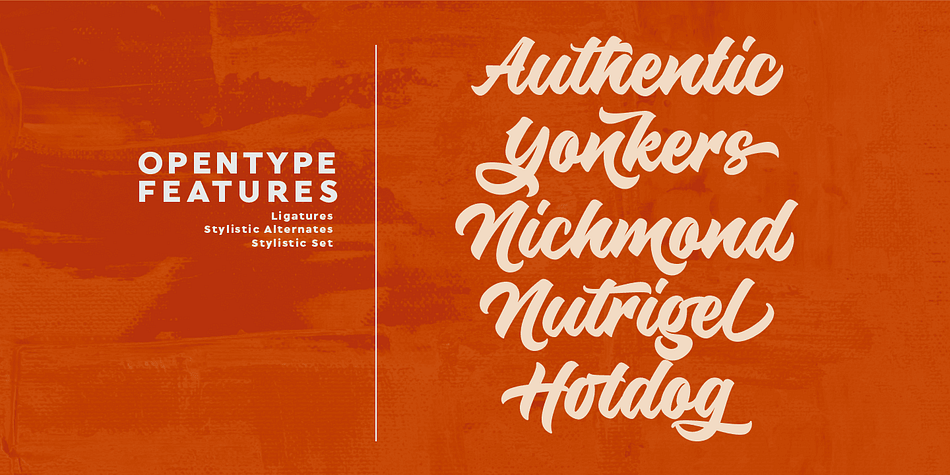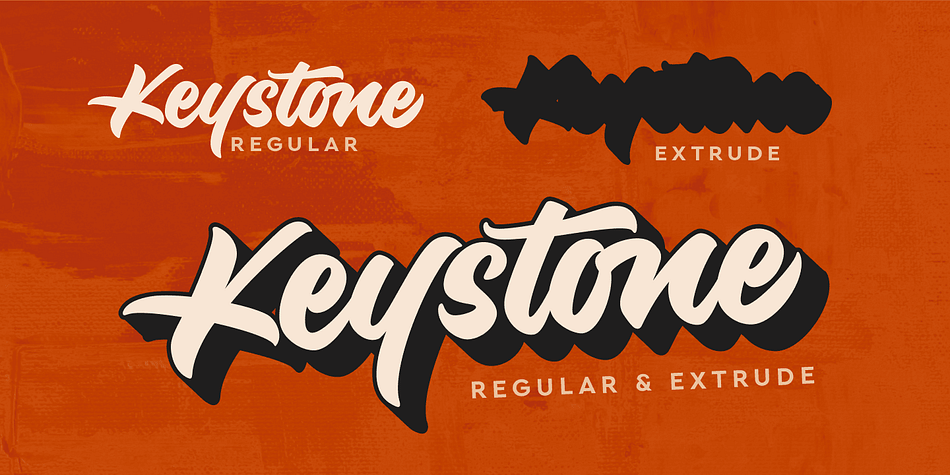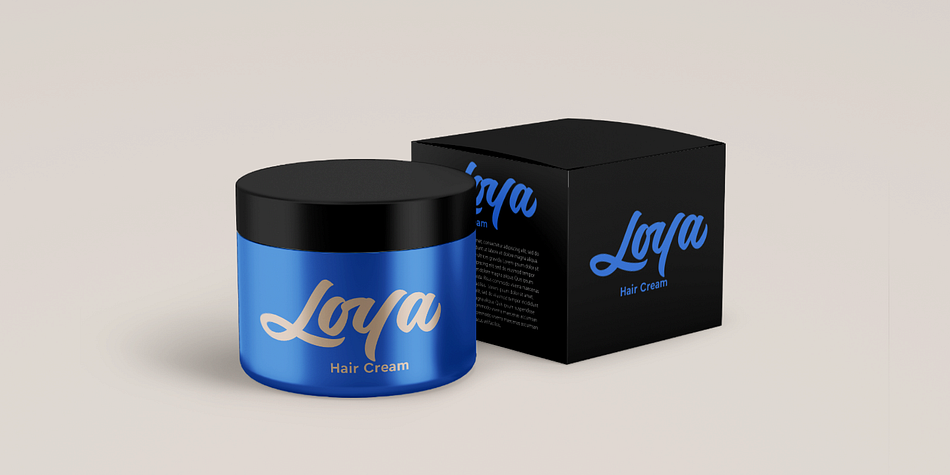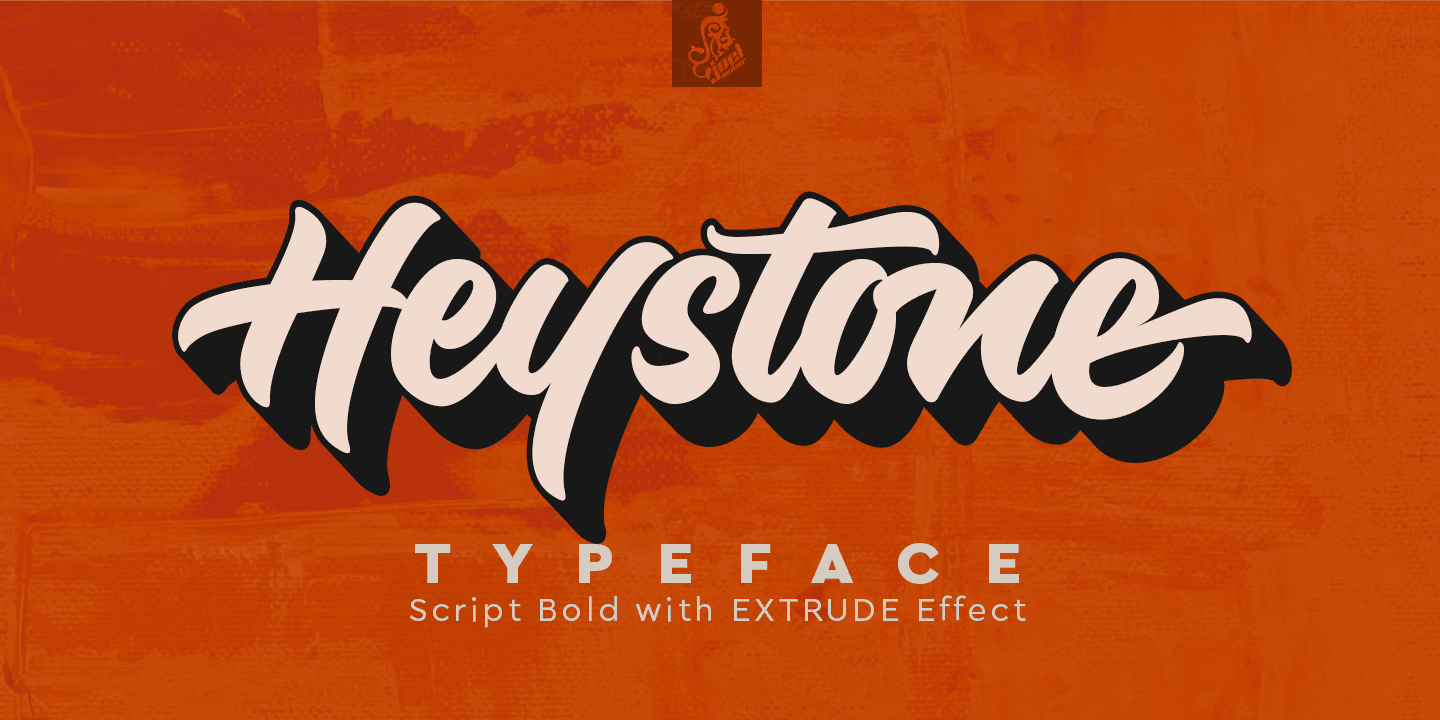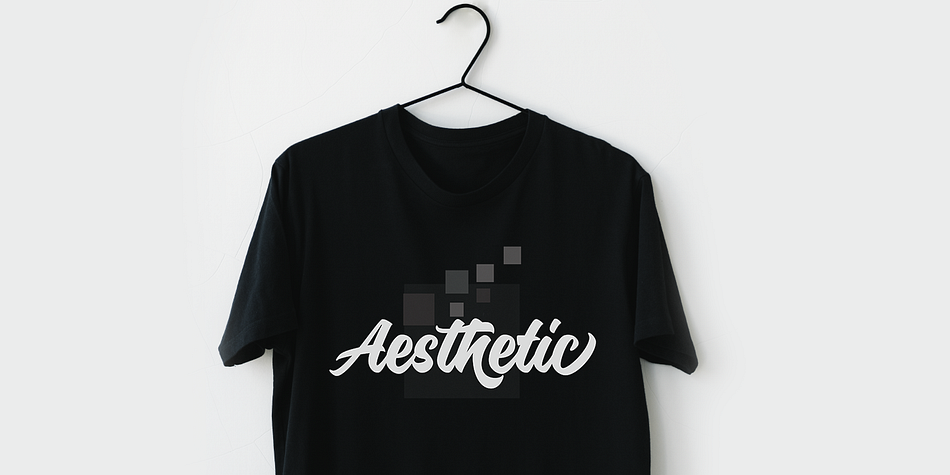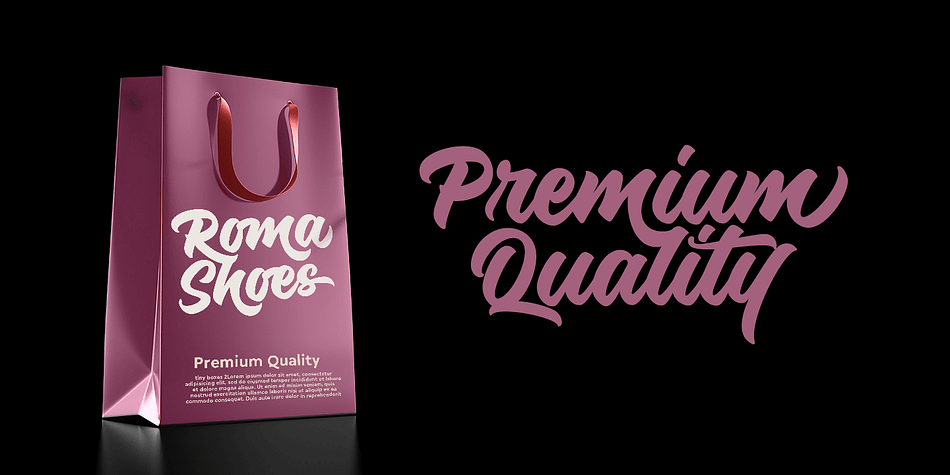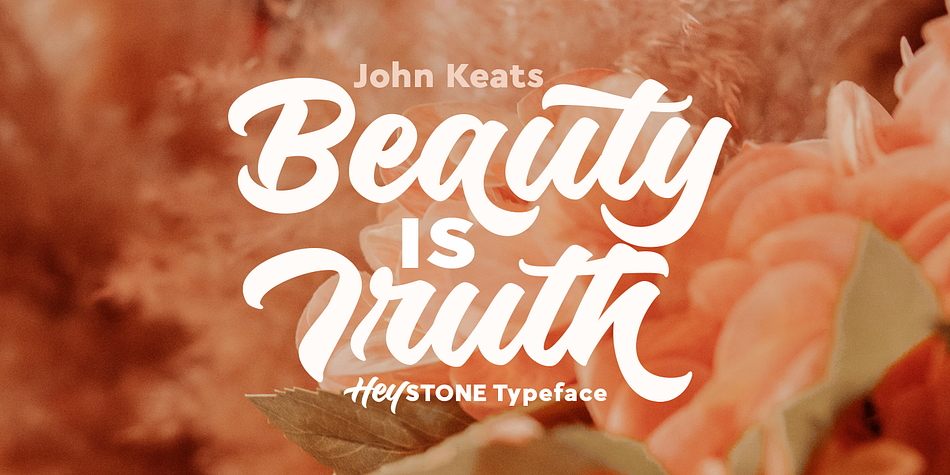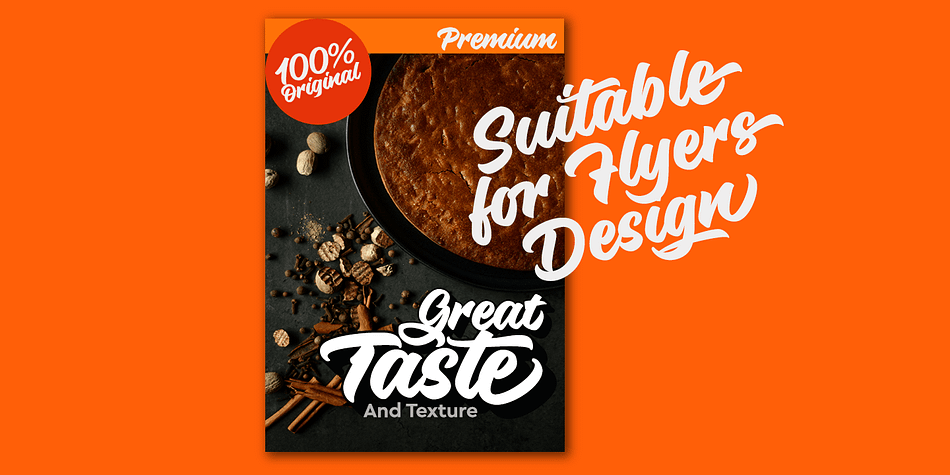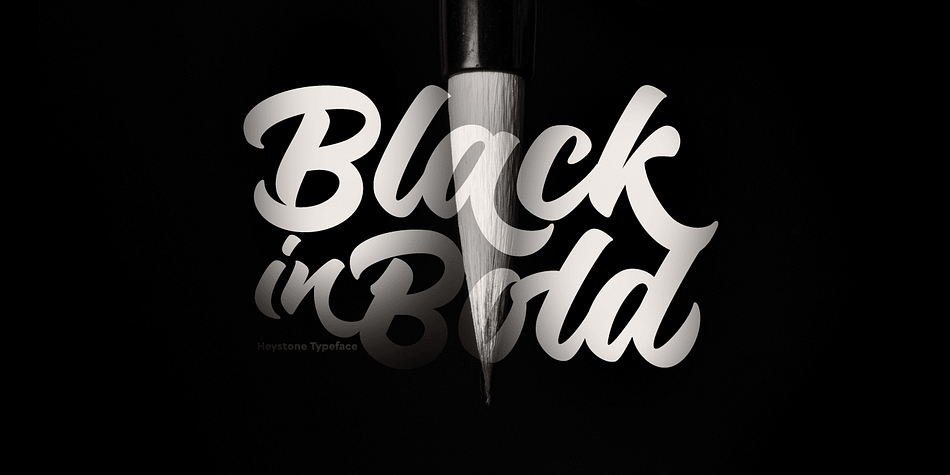
Heystone
Designed by Zulfikar MG, Heystone is a brush script and retro font family. This typeface has two styles and was published by joelmaker.
ITRODUCING
Heystone Typeface & Heystone Exstrude + Krong Black Sanserif
Heystone Typeface is a combination of brush script with an Extrude effect from artistic touch elegant modern the as well as a unique blend of ligatures a letter, so that the authors compose it with a and little swirly embedding, so that a modern font is formed and ready to make a statement by adding elegant and unique flair to your next design project.
Heystone Typeface & Extrude can be used for various purposes such as Magazine Title, Poster, Logo, T-Shirt, Sub Title, Business cards, Trademark, Label, Book Covers, Wedding Invitations,Templates Instagram Story Post, Greeting Cards, Quotes, etc.
Come on..let’s style and pamper your next design with Heystone Typeface & Extrude.